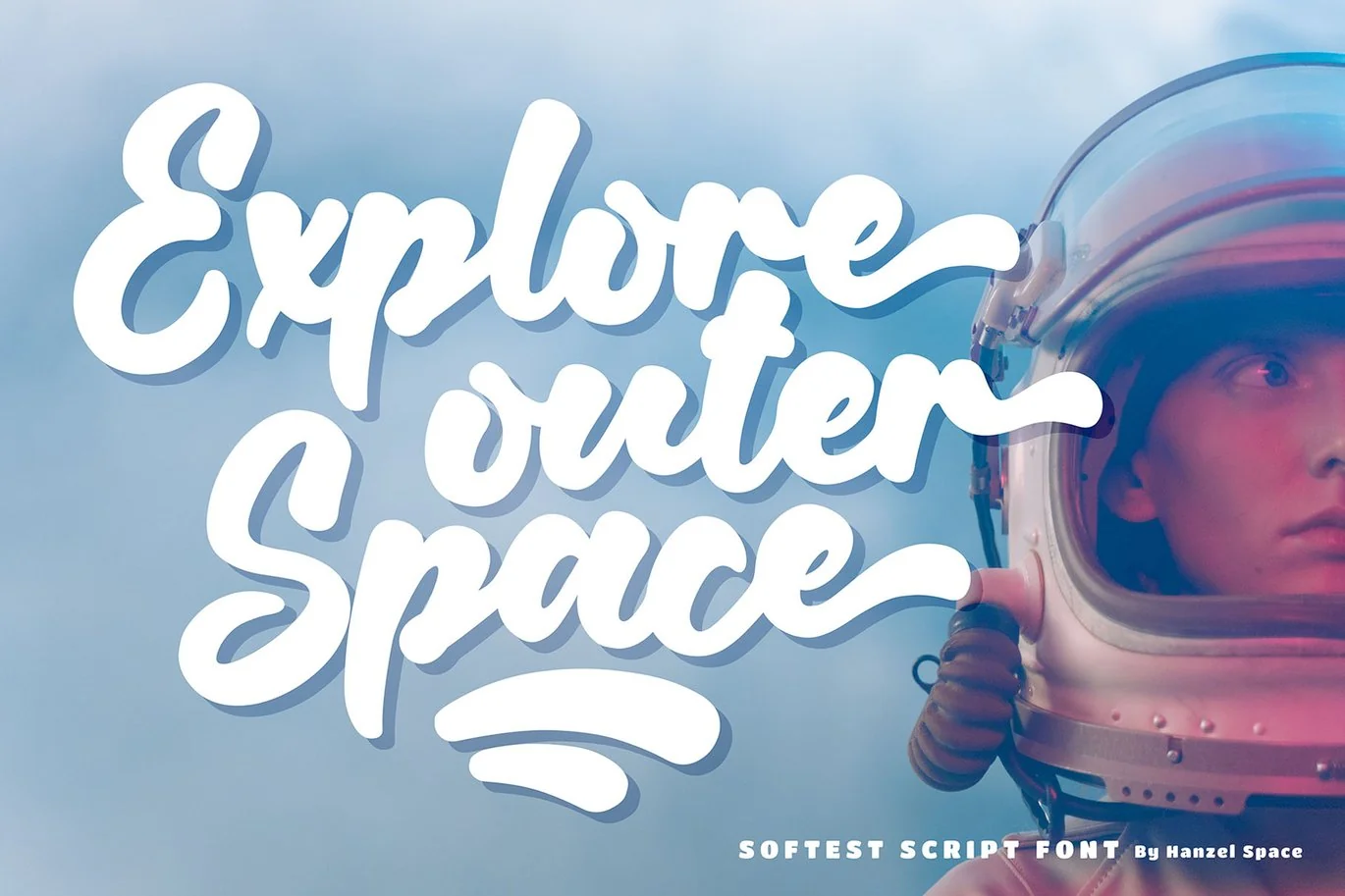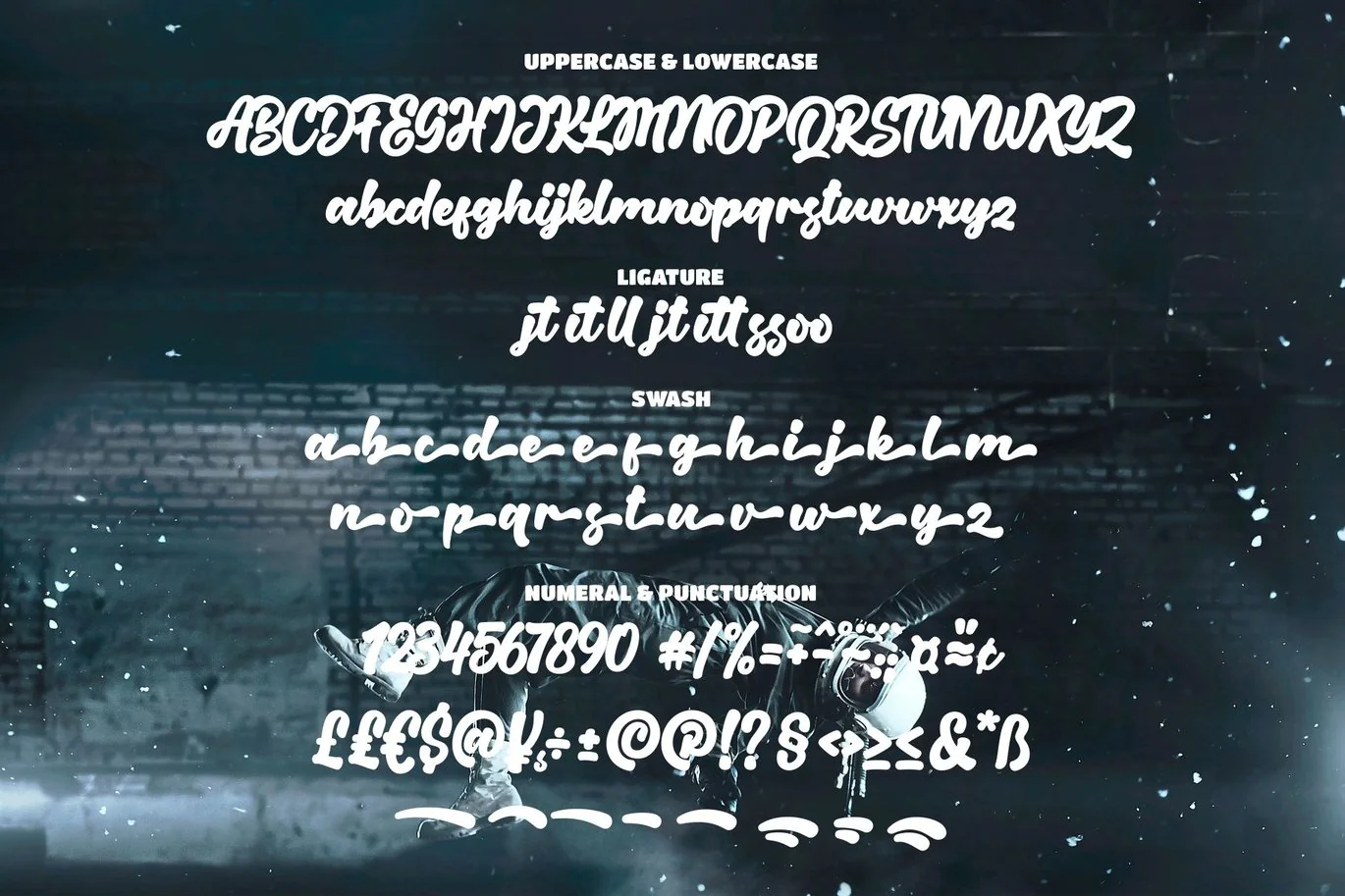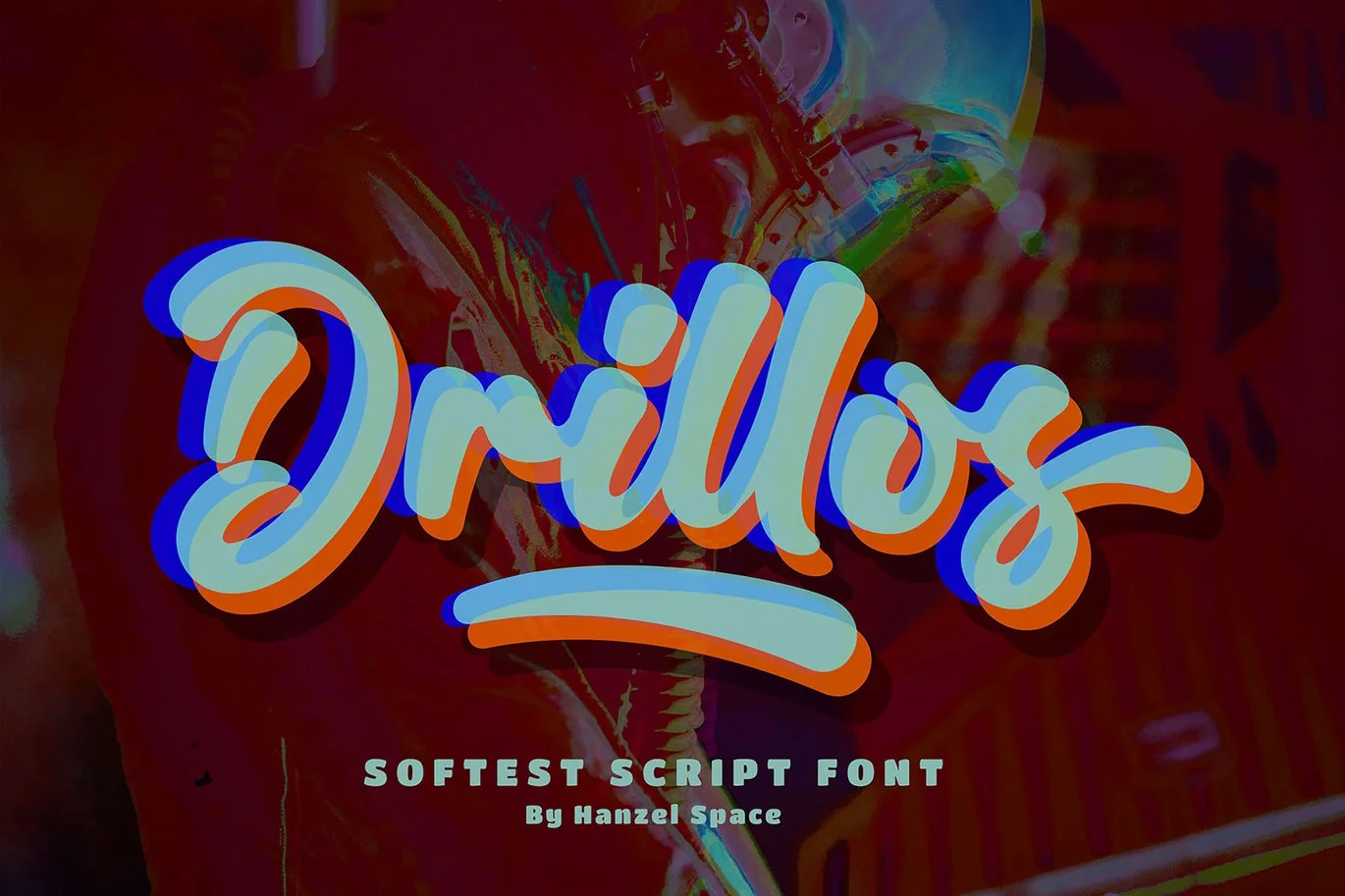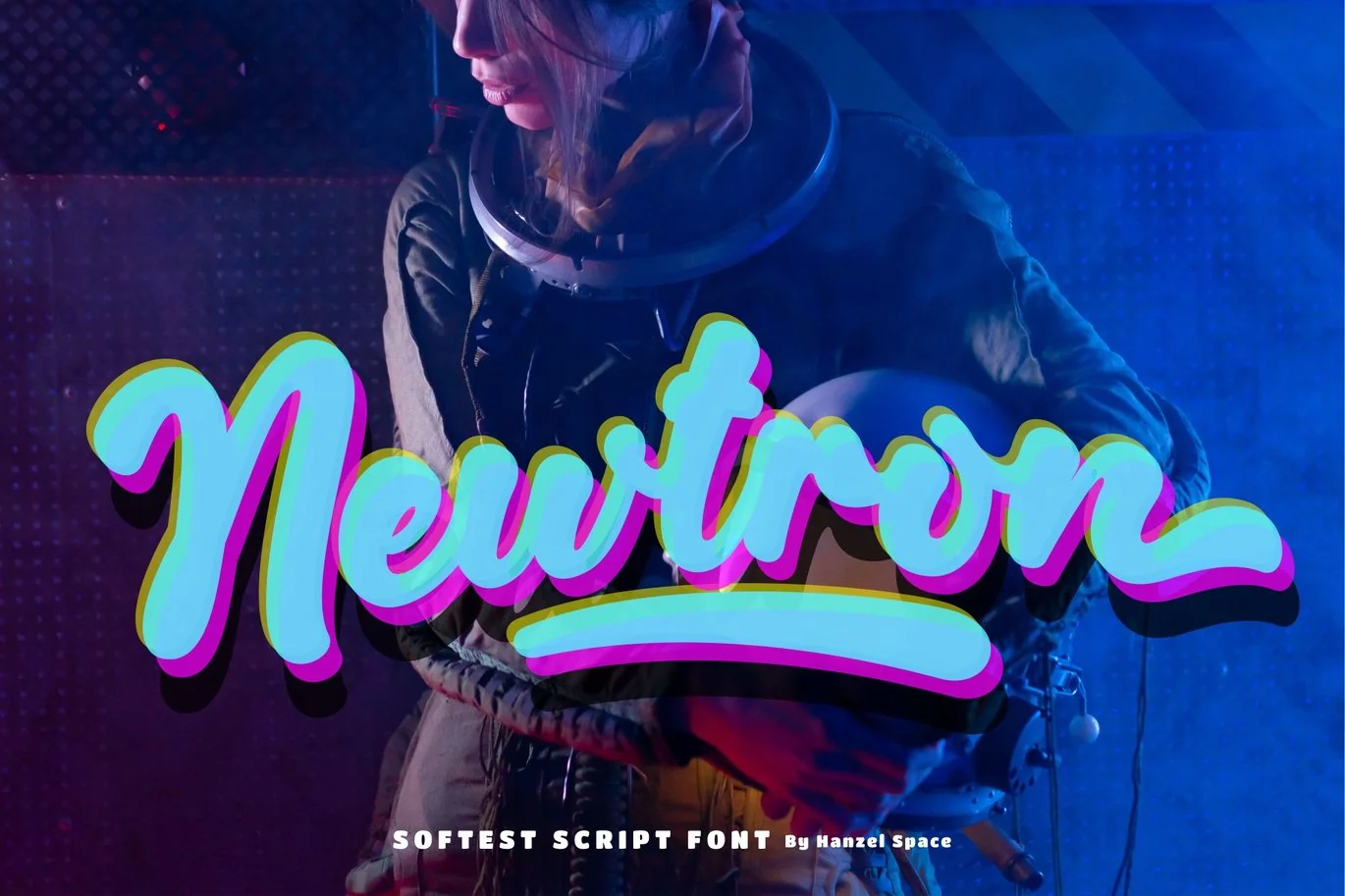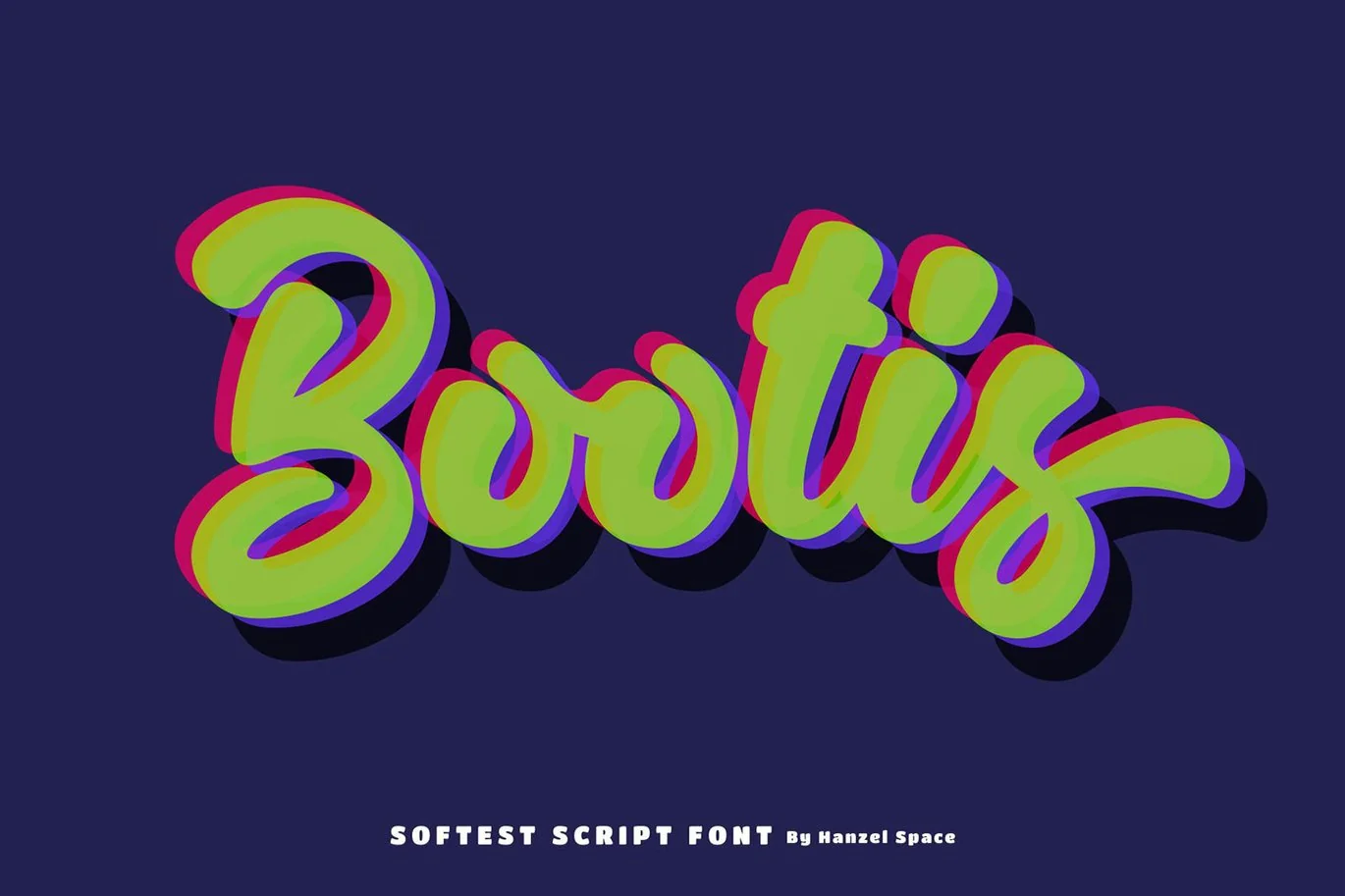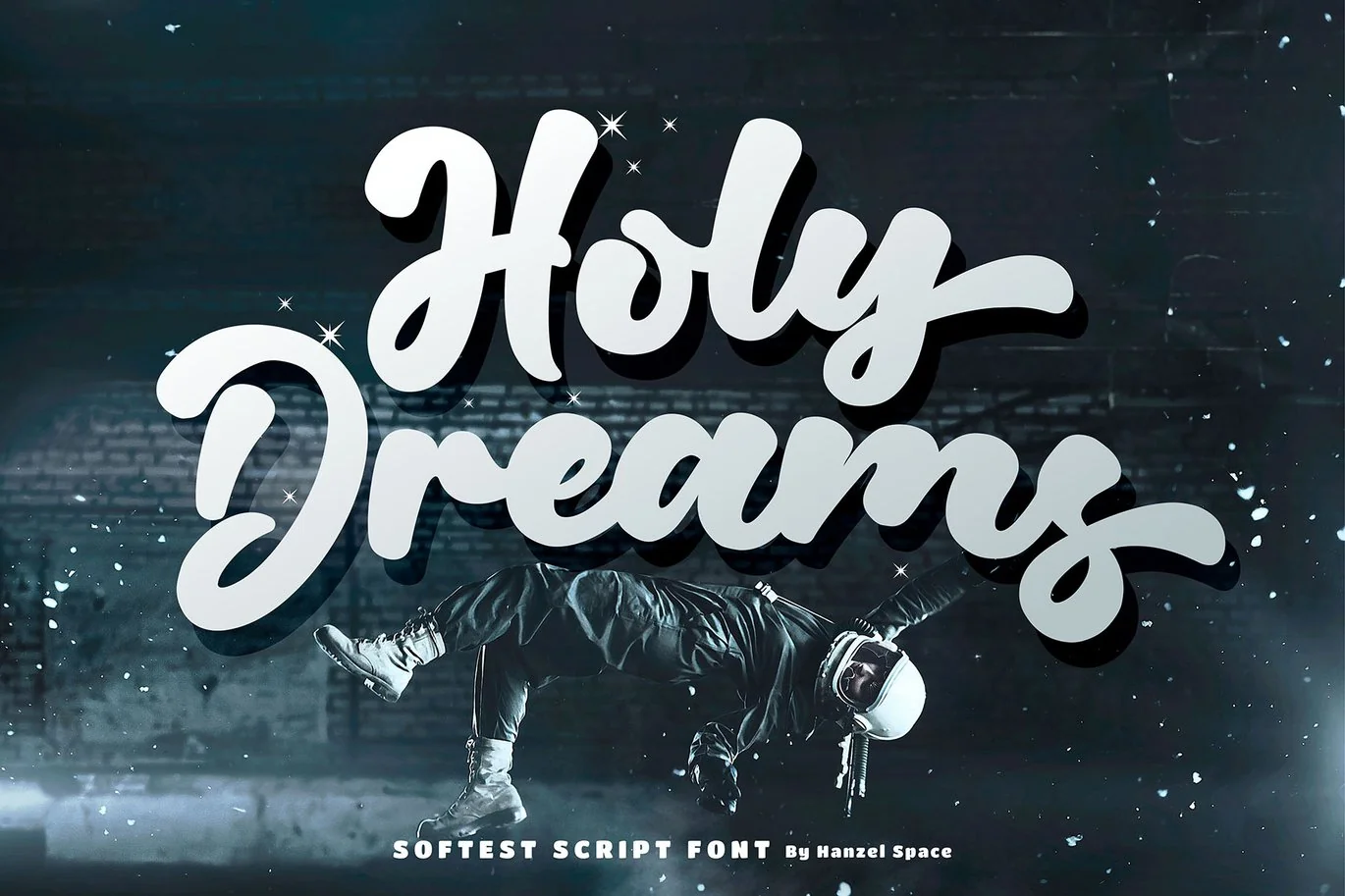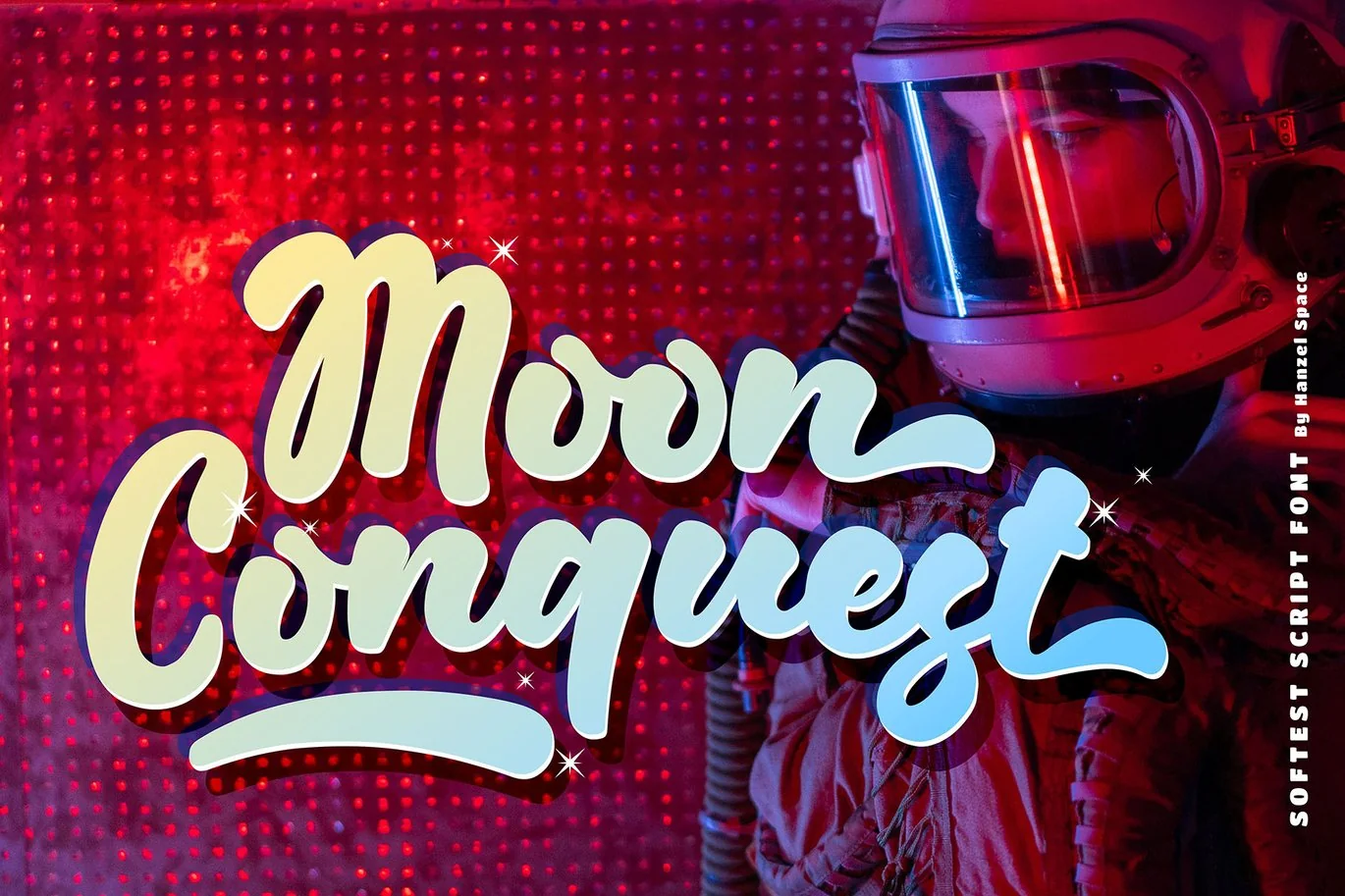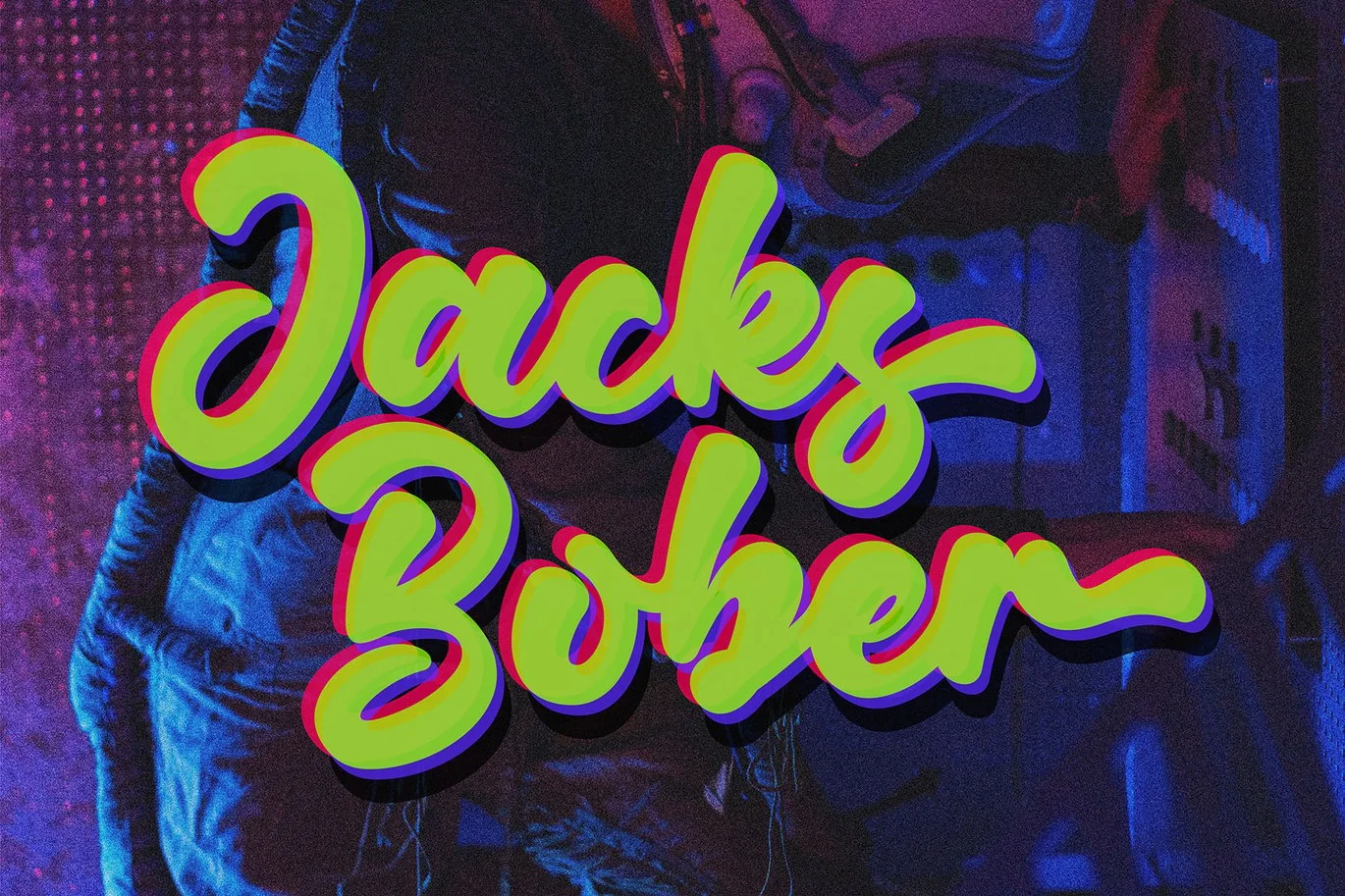
Drillos – Softest Script Font
Introducing our new product “Drillos” Inspired by the shape of a balloon which has rounded curves so that the font looks elastic and feels soft. Which has a thick volume in each character of the letter. There are lots of script fonts that have character, but this time the font that I created this time is no less interesting and unique. The function of this font is very suitable for use as branding, posters, logos, packaging, labels and other design needs. So this font is one solution that is quite capable for the needs of designers to complete a project.
Uppercase & Lowercase, Numeral, Punctuation, Miltilingual, Swash